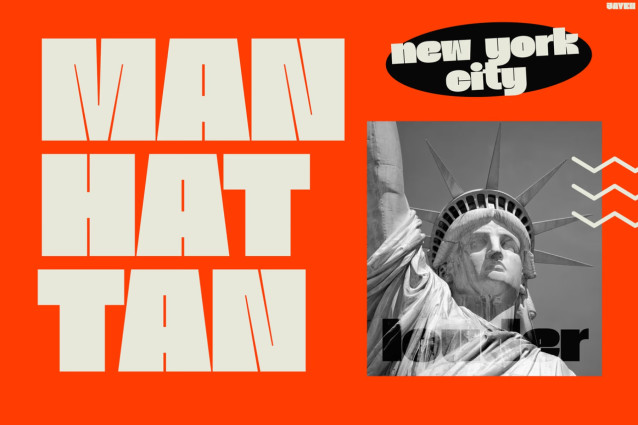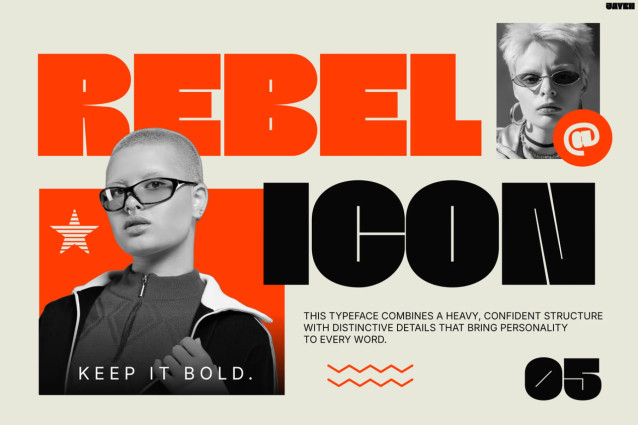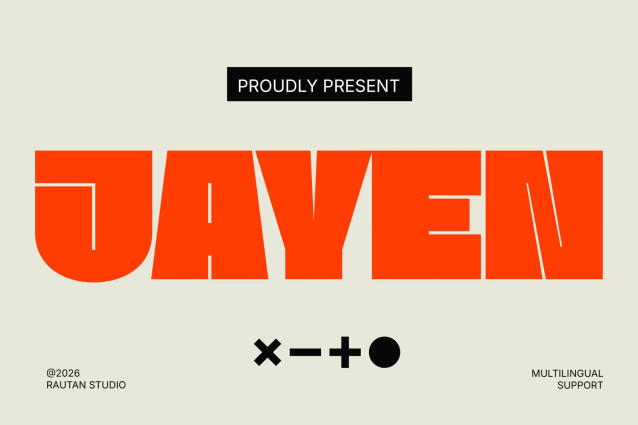
Modern Font JAYEN is a bold display font with a striking retro-modern attitude. From the first glance, its chunky letterforms create a strong and confident visual impact. Moreover, the smooth curves and solid shapes give JAYEN a playful yet powerful personality. Meanwhile, its compact structure helps headlines look bold without feeling messy.
As a result, every word can become a graphic element on its own. In addition, JAYEN brings a fresh creative edge to modern typography. Best of all, it includes Multilingual Support for 67 Languages, so your designs can reach a wider audience.